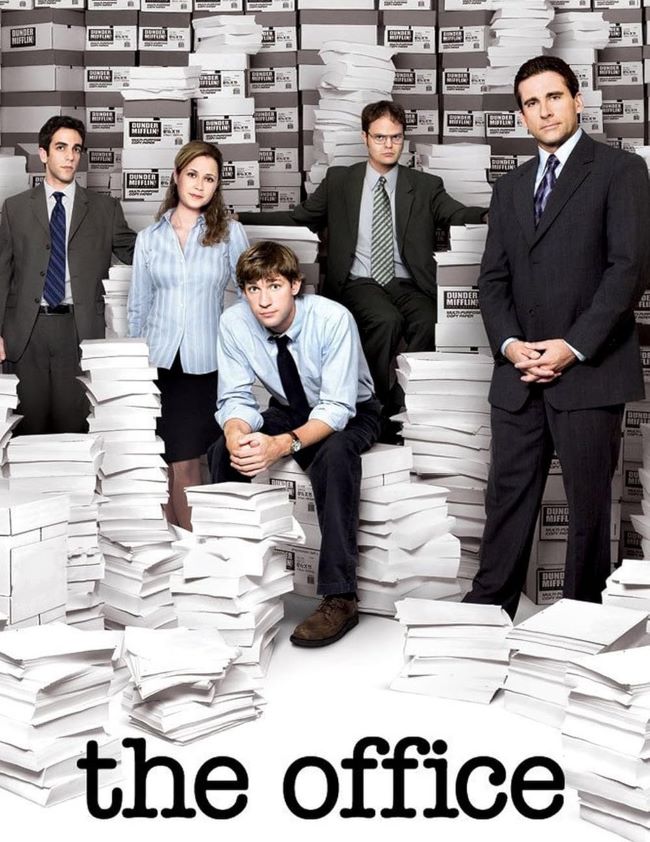
The Office Font
The Office Font is simple, clean, and intentionally understated—perfectly matching the mockumentary style and everyday charm of the show. Its plain sans-serif design feels unpolished and authentic, capturing the mundane yet hilarious atmosphere of Dunder Mifflin’s Scranton branch. This minimalist look is exactly why the Office font is so recognizable; it mirrors the ordinary workplace setting that became the stage for some of television’s most memorable comedic moments.
This straightforward font captures the relatable, everyday spirit of the show, making it a favorite for fan edits, parodies, and nostalgic designs.